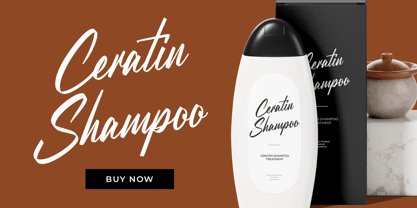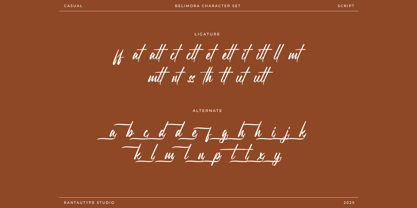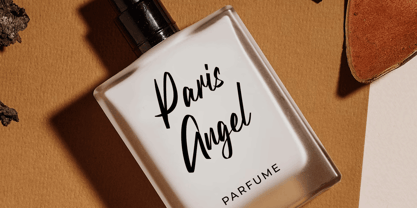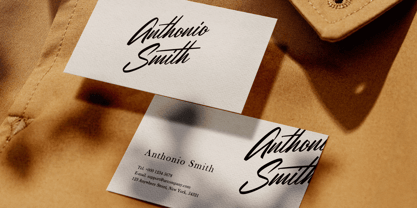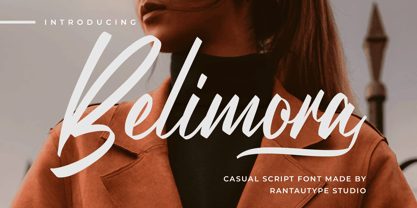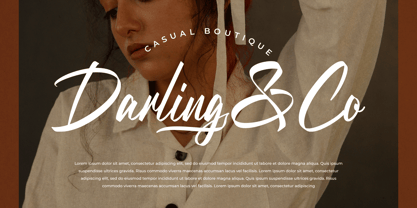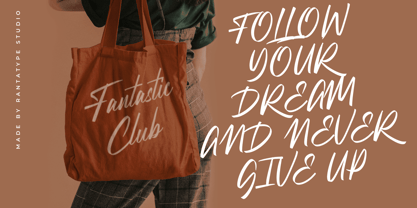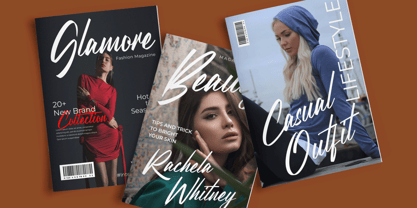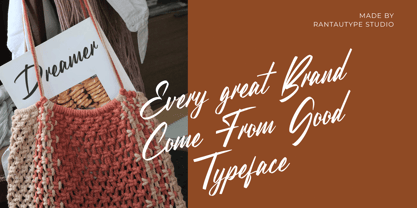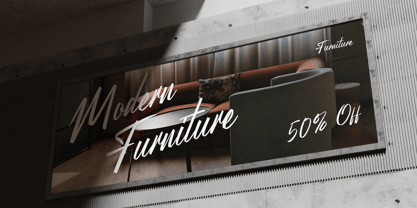
Belimora
by RantauType
The Belimora Font Family was designed by Yudi Pratama Chandra and published by RantauType. Belimora contains 1 styles.
Belimora is casual script font made with love and passion. Belimora is a perfectly choice for any creative endeavor, creating, modern, chic, lifestyle design such as logotype, title, cover, branding, invitations, wedding designs, display and magazine, social media posts, advertisements, printed quotes, product packaging, corporate brand, product designs, labels, photography, watermarks, special events and any other project with handwritten touch.
• Ligature and alternate